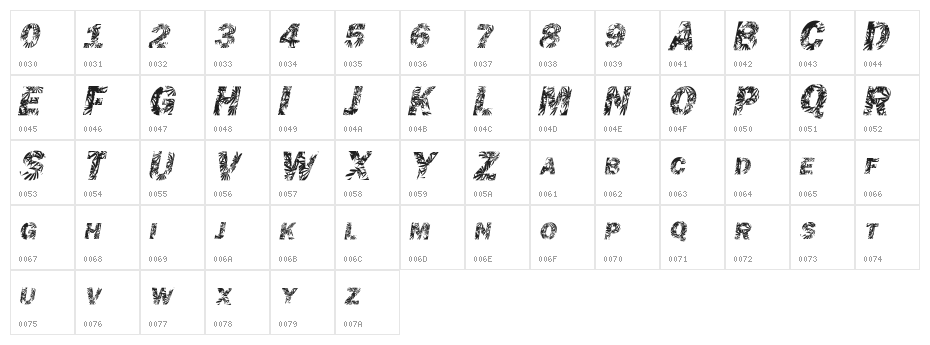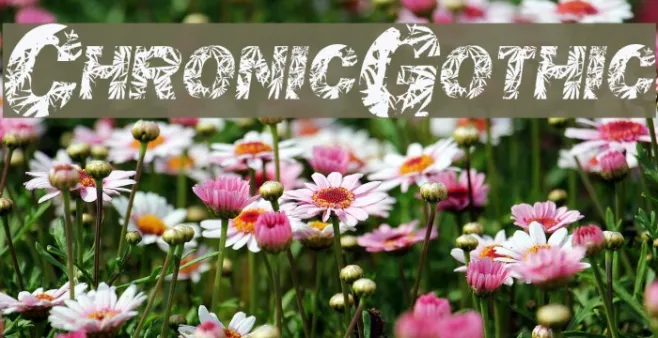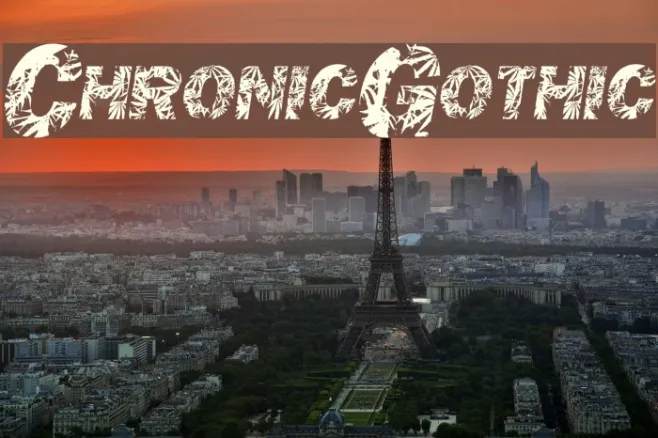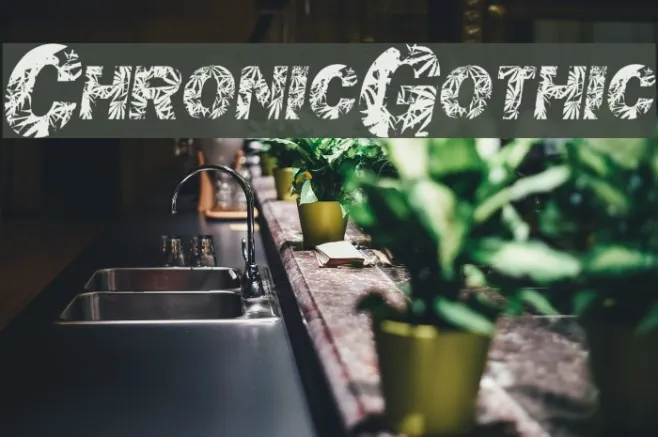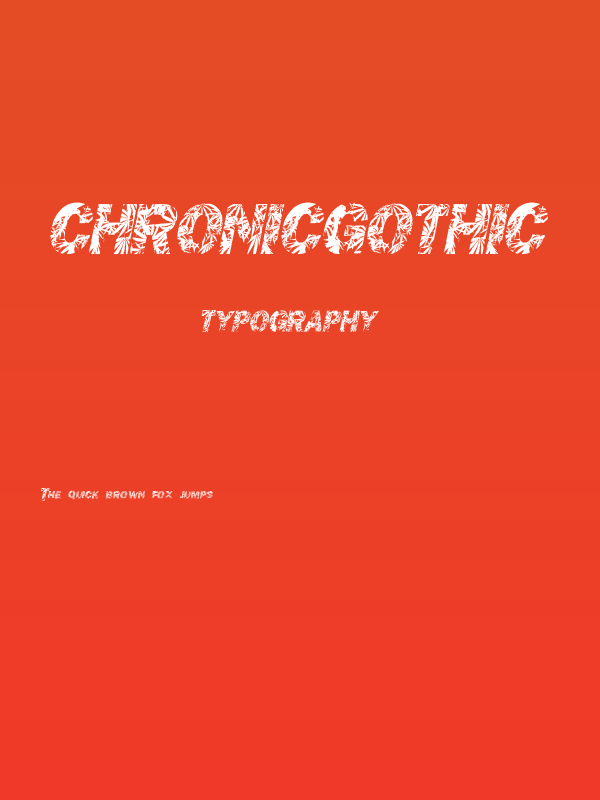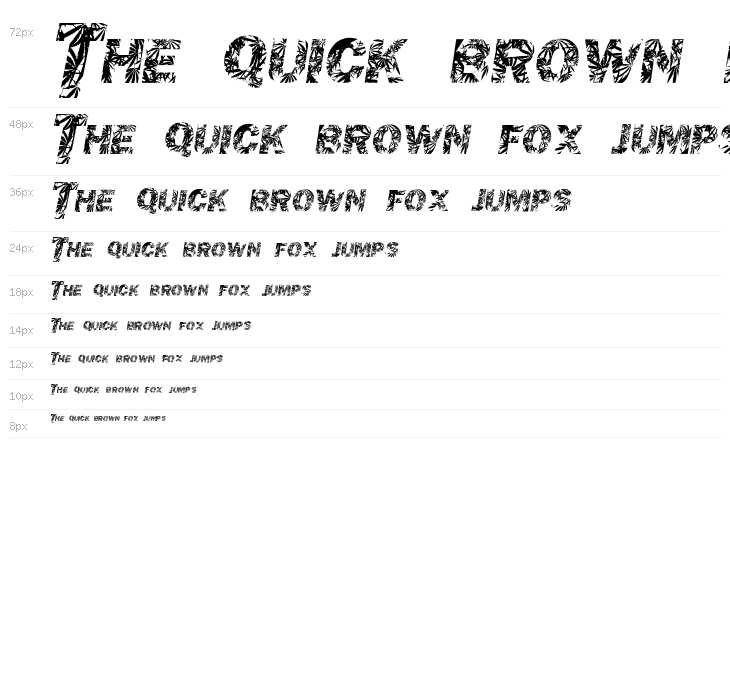
ChronicGothic Font
ChronicGothic Description
This font features a bold and decorative style with intricate, leafy patterns filling each character. The design is highly detailed, creating a textured and organic appearance that draws the eye. Each letter and number is distinct, with the foliage motif giving a sense of nature and wildness. The characters are uppercase and lowercase, with numerals included, all maintaining the same decorative theme. The font's unique style makes it stand out, ideal for projects that require a natural or artistic touch.
| Proposed Projects | Ideal for nature-themed posters, artistic branding, eco-friendly product packaging, and creative invitations. |